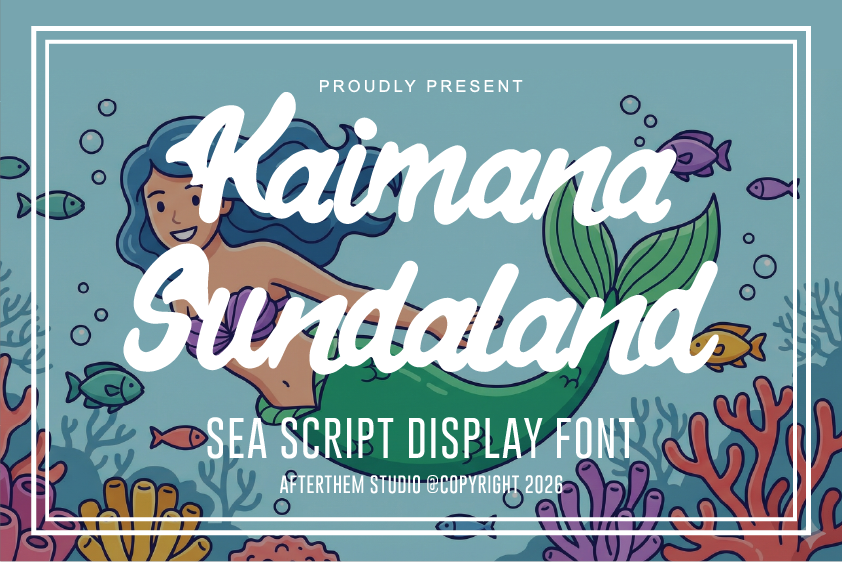
Kaimana Sundaland Font
Kaimana Sundaland is a playful, cute display font with a whimsical, hand-drawn vibe that adds character to your designs. Its rounded, friendly letterforms evoke a fun, casual style perfect for headlines, kids’ themes, social graphics, and creative branding. Designed as a TrueType font with 122 glyphs and 68 characters, this typeface stands out with its charming curves and approachable aesthetic.